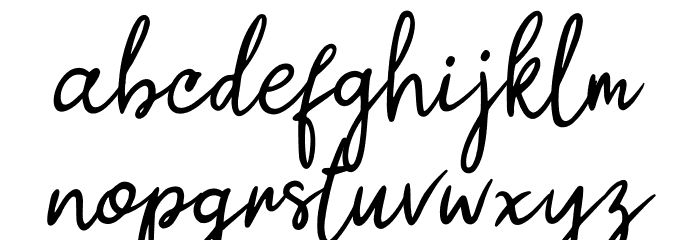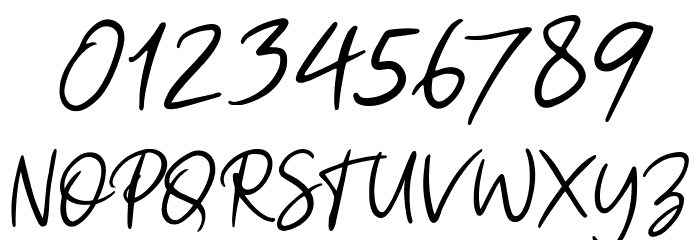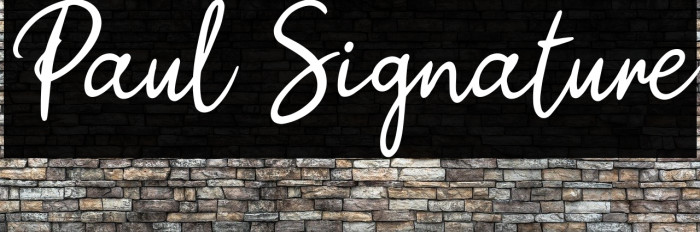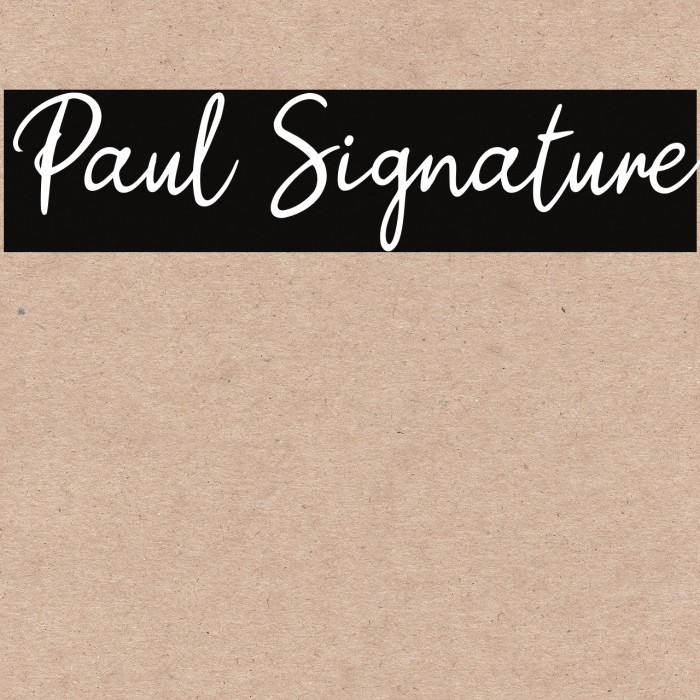
Paul Signature Font
This font exudes a personal and artistic flair, reminiscent of a handwritten signature. The characters are fluid and connected, with a natural flow that mimics cursive handwriting. Each letter has a unique, slightly slanted appearance, adding to the overall dynamic and lively feel. The strokes are smooth and consistent, with a moderate thickness that ensures readability while maintaining an elegant style. The font captures a sense of individuality and creativity, making it ideal for projects that require a personal touch.
A fluid, cursive-style font with a personal and artistic flair.
- Proposed Projects: Ideal for personal branding, invitations, greeting cards, and artistic projects that require a handwritten touch.
- Use Case: Logos, Invitations, Personal Branding